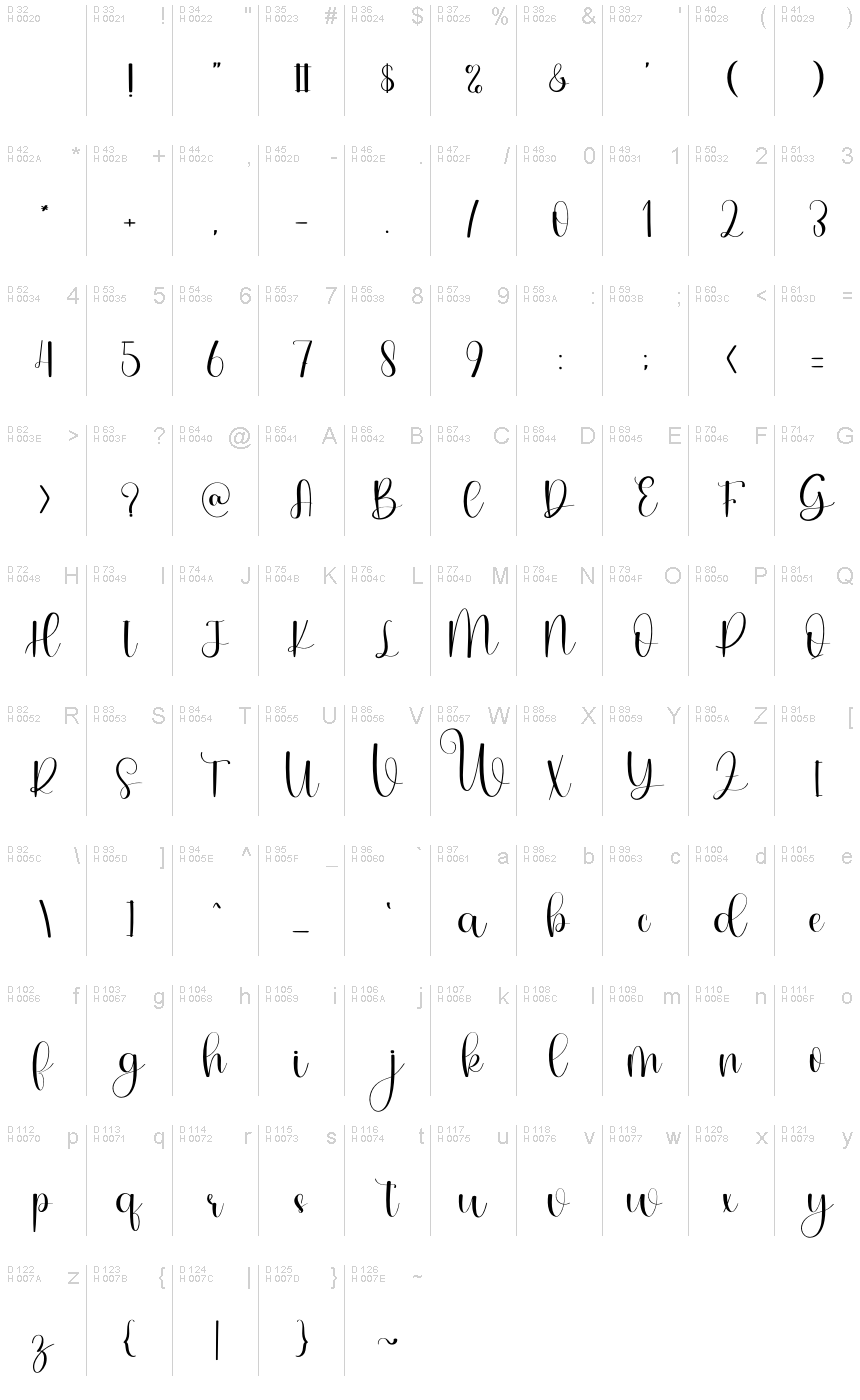
Wonderful
Wonderful, crafted by PiPi Creative, is a calligraphy font that elegantly bridges the gap between traditional penmanship and contemporary flair. With its semi-light weight, it boasts graceful curves and delicate lines that mimic the beauty of hand-lettering. The fluidity in Wonderful's characters adds a personal touch to any project, making it ideal for invitations, branding, and editorial design where a touch of sophistication is desired.
The font's aesthetic appeal lies in its harmonious balance; each stroke exudes an air of artistic finesse without compromising readability. Its versatility also shines through as it can be seamlessly integrated into various design contexts—whether you're aiming for a romantic vibe or an artisanal look. Wonderful is more than just a typeface; it's a stylistic tool poised to elevate your creative endeavors with its timeless charm.